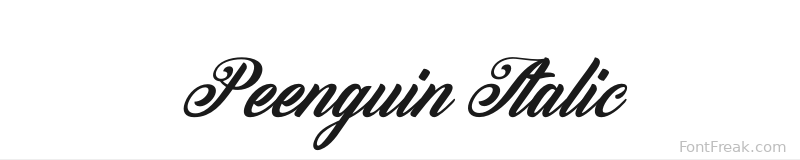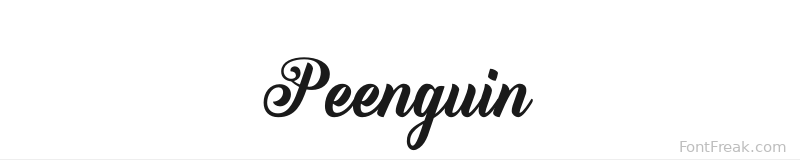
Peenguin
Peenguin Italic
Peenguin, designed by Kong Font in 2019, is a unique and expressive script typeface that captures attention with its playful yet elegant aesthetic. This font is characterized by its fluid strokes and varying weight, which create a sense of movement and dynamism. The italic style enhances its charm, giving it a personal touch that is well-suited for creative projects. The letterforms feature a moderate contrast that balances readability and artistic flair, making it an excellent choice for various applications.
Peenguin is ideal for wedding invitations, where its graceful curves can evoke a sense of romance and celebration. Additionally, it can be effectively used for movie posters, providing a stylish and eye-catching title that draws viewers in. Restaurant menus can also benefit from this font, as its inviting appearance can enhance the overall dining experience. Content creators looking to add a unique flair to their social media posts or branding will find Peenguin to be a versatile choice that resonates with their audience.
What sets Peenguin apart is its ability to blend elegance with a sense of fun, making it suitable for both formal and casual contexts. Whether you're designing a heartfelt invitation or a striking poster, Peenguin font free download offers a delightful option that elevates any design. Its distinctive style ensures that your text captures attention and leaves a lasting impression.